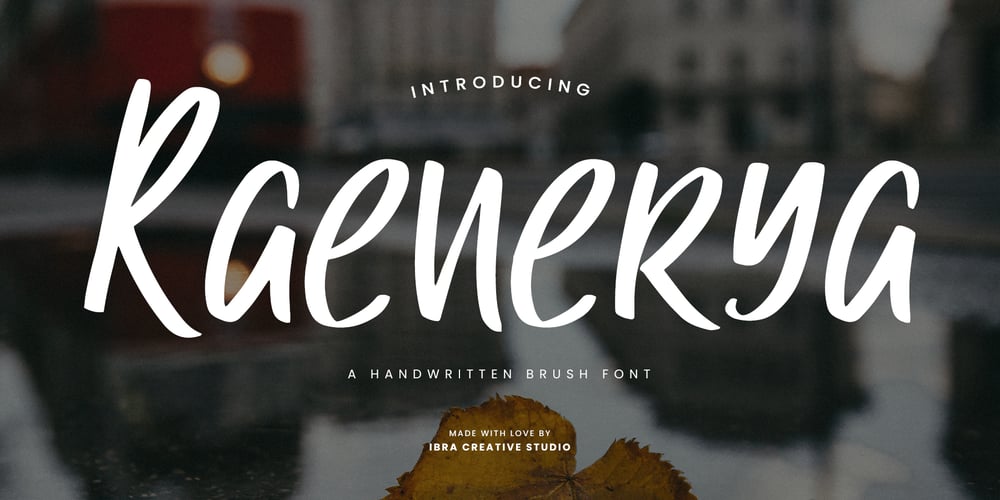
Raenerya Font Family was designed by Roisatul Azizah and published by IbraCreative. Raenerya contains 1 styles and family package options. Raenerya – A Handwritten Brush FontRaenerya, a handwritten brush font, brings a touch of artistic spontaneity to the world of typography. With its gracefully imperfect strokes, Raenerya captures the essence of free-flowing brushwork, creating an authentic and organic feel. Each character is imbued with a sense of fluidity and warmth, reminiscent of handcrafted lettering on canvas. This font lends itself beautifully to creative projects that seek to evoke a sense of individuality and handmade charm. Raenerya’s expressive strokes dance on the page, making it an ideal choice for designs that require a personal and artistic touch. Whether used for branding, invitations, or creative displays, Raenerya adds a distinctive flair that celebrates the beauty of imperfection and the artistry of handwritten expression. Raenerya is perfect for branding projects, logo, wedding designs, social media posts, advertisements, product packaging, product designs, label, photography, watermark, invitation, stationery, game, fashion and any projects.Fonts include multilingual support for; Afrikaans, Albanian, Czech, Danish, Dutch, English, Estonian, Finnish, French, German, Hungarian, Italian, Latvian, Lithuanian, Norwegian, Polish, Portuguese, Slovak, Slovenian, Spanish, Swedish.